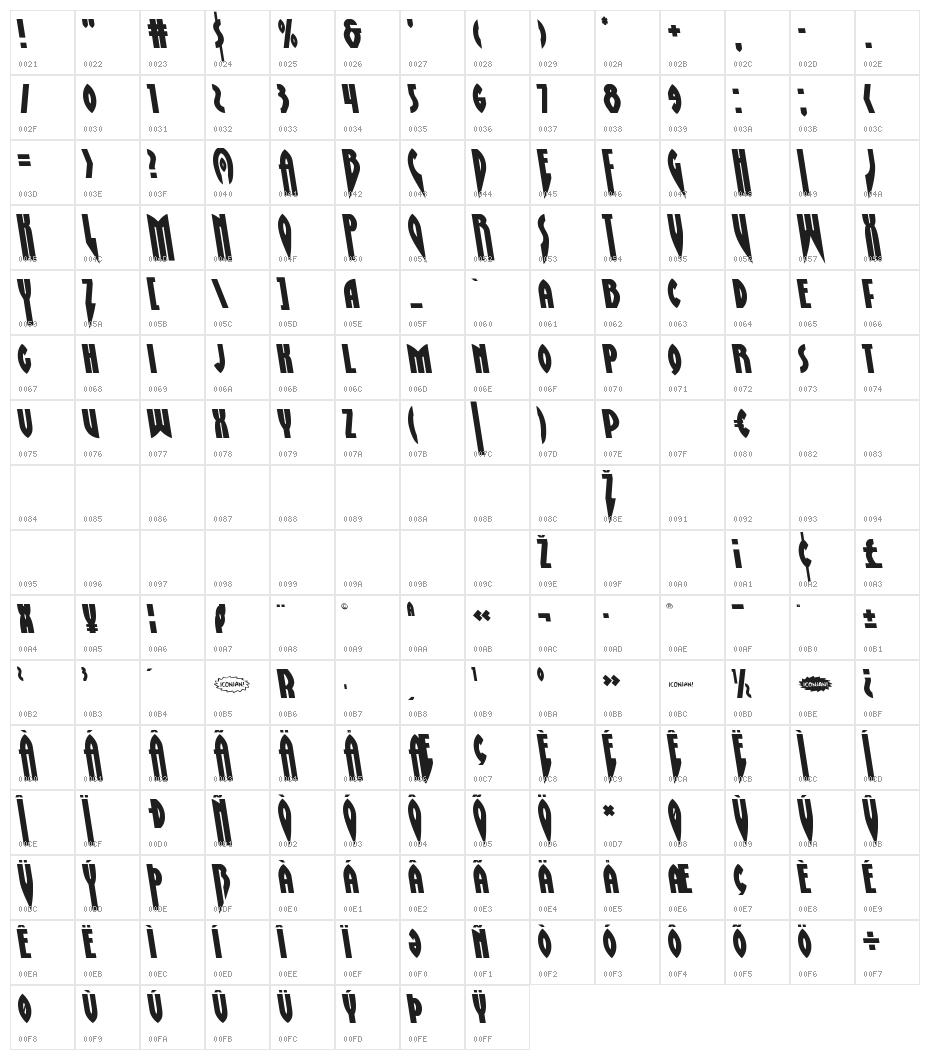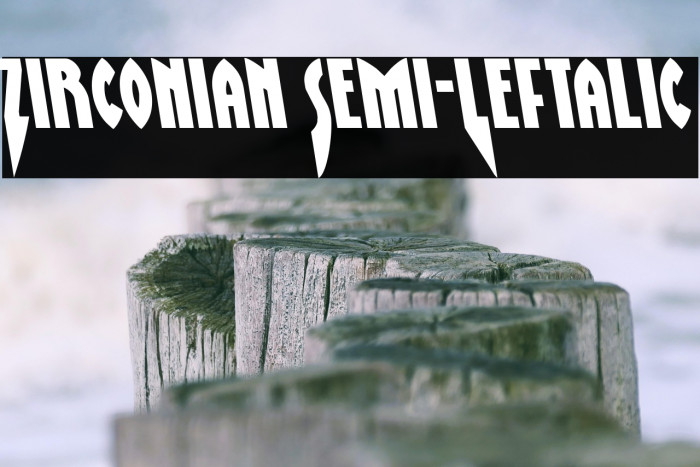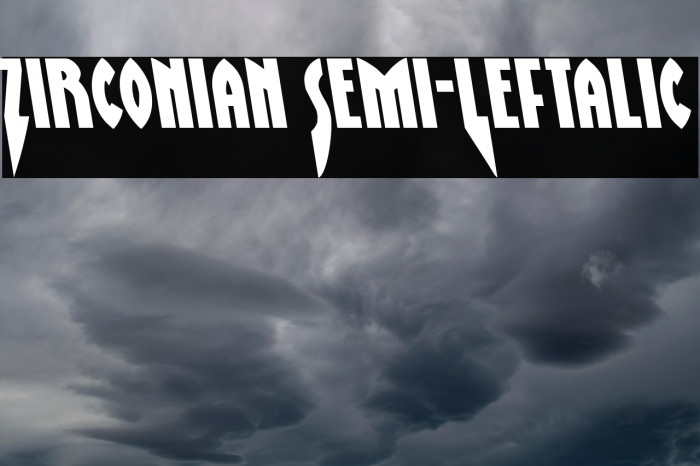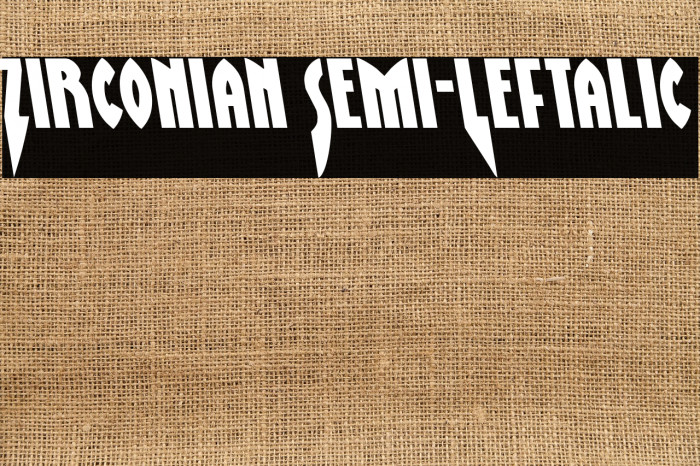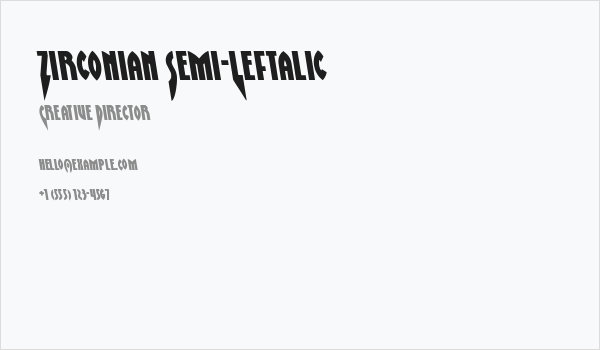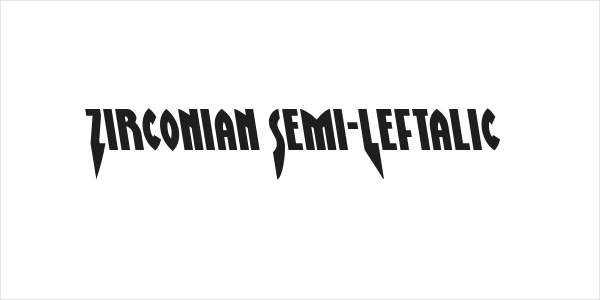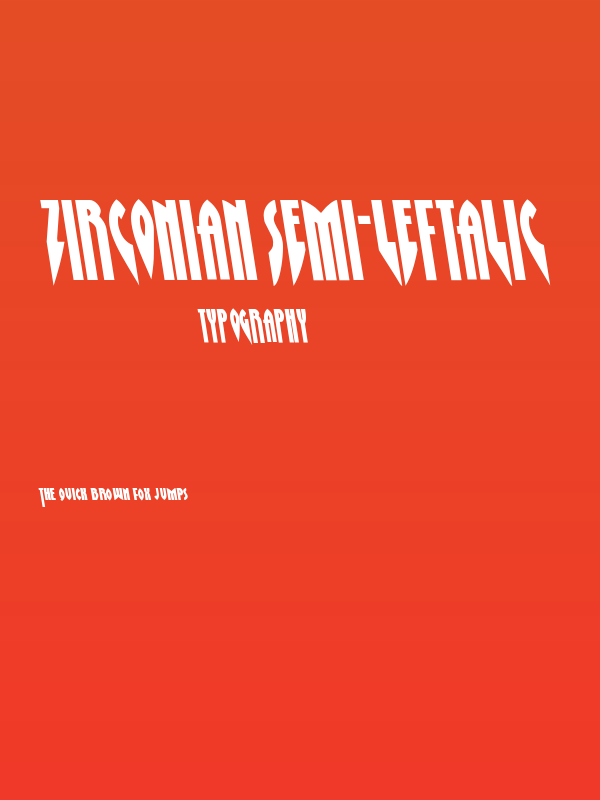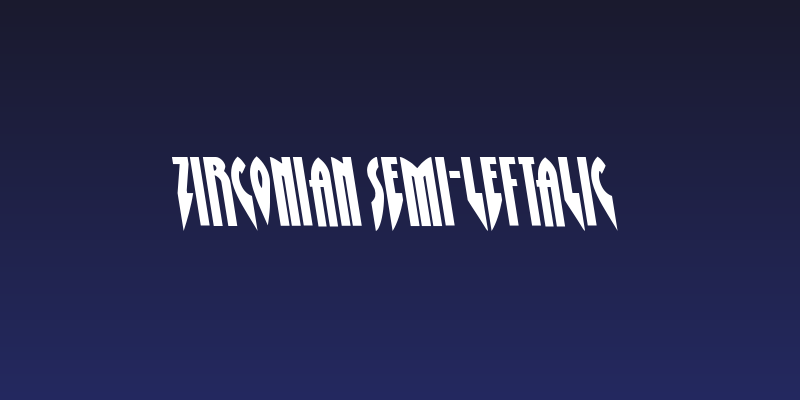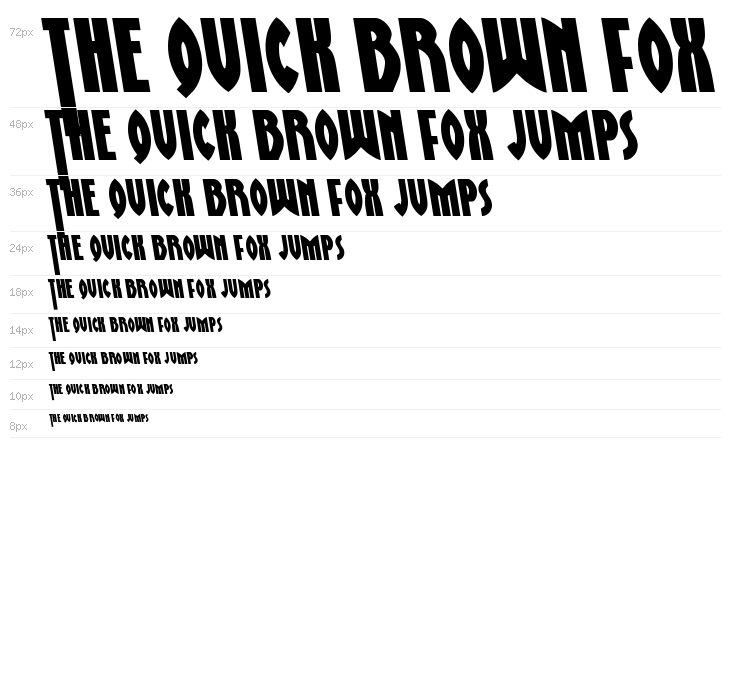
Zirconian Semi-Leftalic Font
Zirconian Semi-Leftalic Description
This font exhibits a bold and striking appearance with a distinct leftward slant, giving it a dynamic and unconventional look. The characters are heavily stylized with sharp angles and exaggerated forms, creating a sense of movement and energy. The uppercase and lowercase letters maintain a consistent style, with the uppercase being particularly prominent and attention-grabbing. The numbers and special characters follow the same bold and angular design, ensuring uniformity across all elements. The font's unique style makes it suitable for projects that require a strong visual impact.